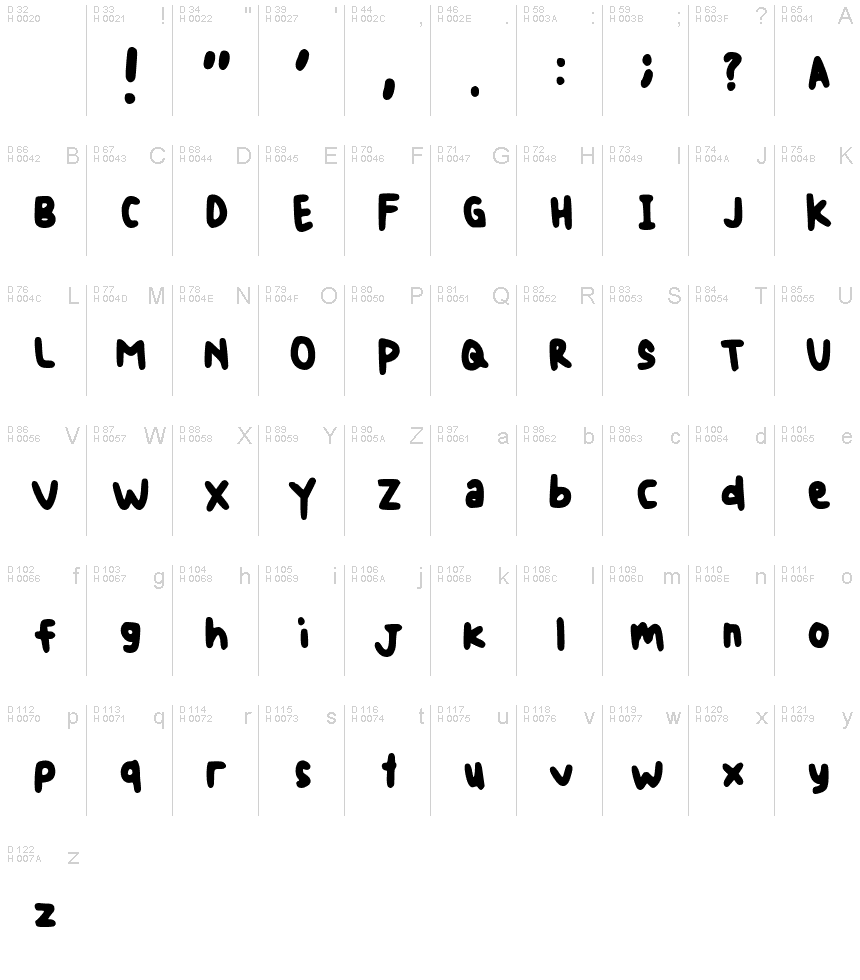
Hii Regular
The Hii font, designed by Random Skies, is the perfect choice for any project that requires a bold and striking handwritten typeface. With its unique style and thick strokes, Hii is ideal for creating eye-catching logos, posters, and other graphic design elements that demand attention. This versatile font can be used in a variety of projects, from branding and advertising to social media graphics and more. The bold weight of the Hii font makes it stand out on any background or surface, while its handwritten style gives it a personal touch that connects with audiences on an emotional level. Try out Hii in your next project and see how it elevates your design to new heights!